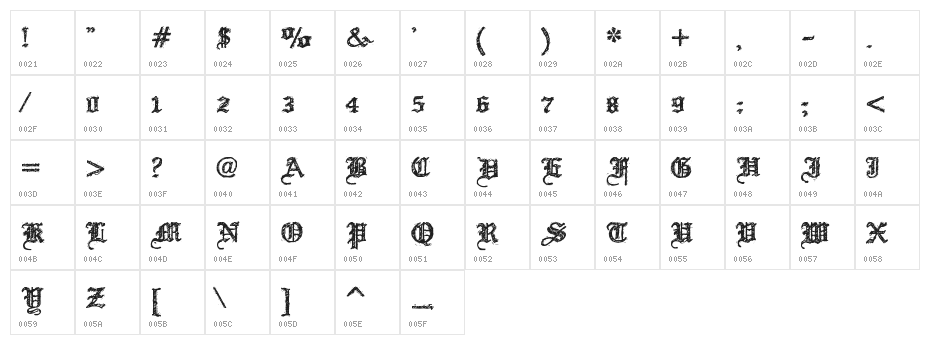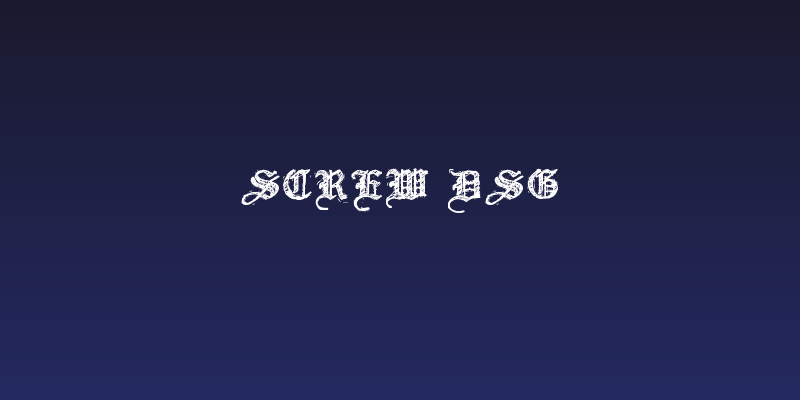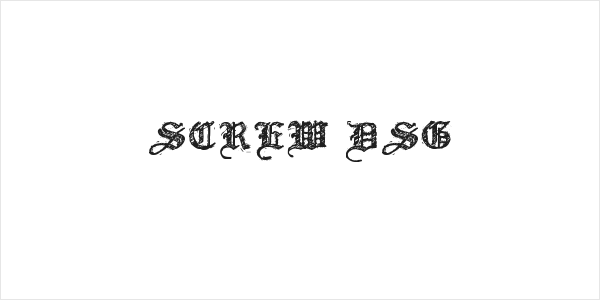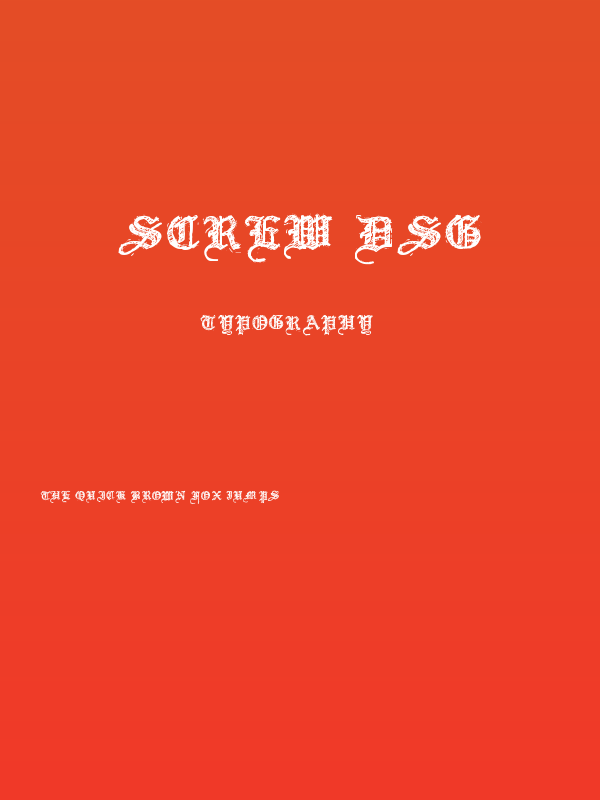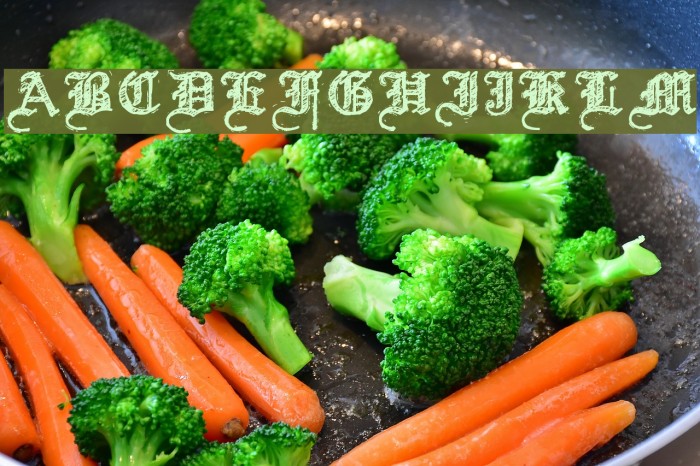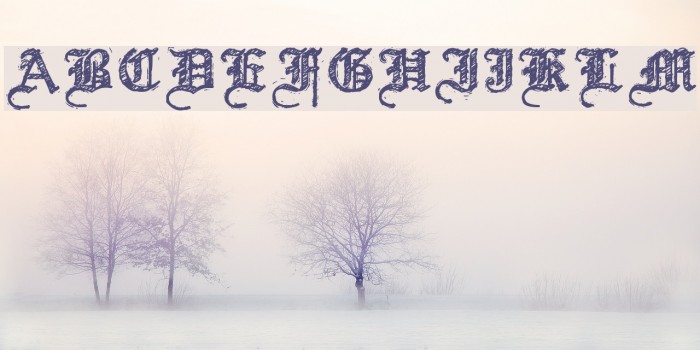
Screw DSG Font
Screw DSG Description
This font is a bold and intricate blackletter style, characterized by its ornate and decorative elements. Each character is adorned with flourishes and sharp edges, giving it a historic and gothic appearance. The texture appears distressed, adding a vintage and rugged feel to the overall design. The uppercase and lowercase letters maintain a consistent style, with elaborate serifs and a high level of detail. Numbers and special characters are equally stylized, ensuring a cohesive look across all elements.